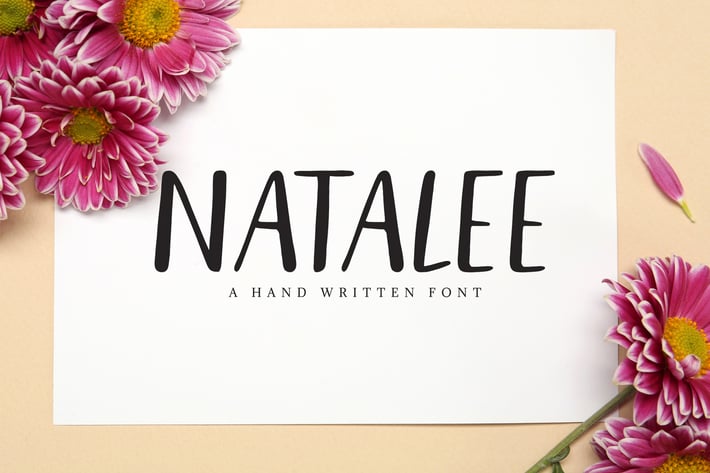
Natalee Brush Font
Natalee is a beautiful, strong and cute handmade font that will elevate a wide range of design projects to the highest level! It contains uppercase, lowercase, number, punctuation, symbols and support multilingual. Natalee will be perfect for packaging, presentations, logo, headlines, lettering, posters, branding, quotes, titles, magazines headings, web layouts, advertising, invitations, packaging design, books, and nearly any creative design.
Natalee Font Features:
- Uppercase Letters
- Lowercase Letters
- Support Multilingual ( Latin Supplement + Latin Extended A)